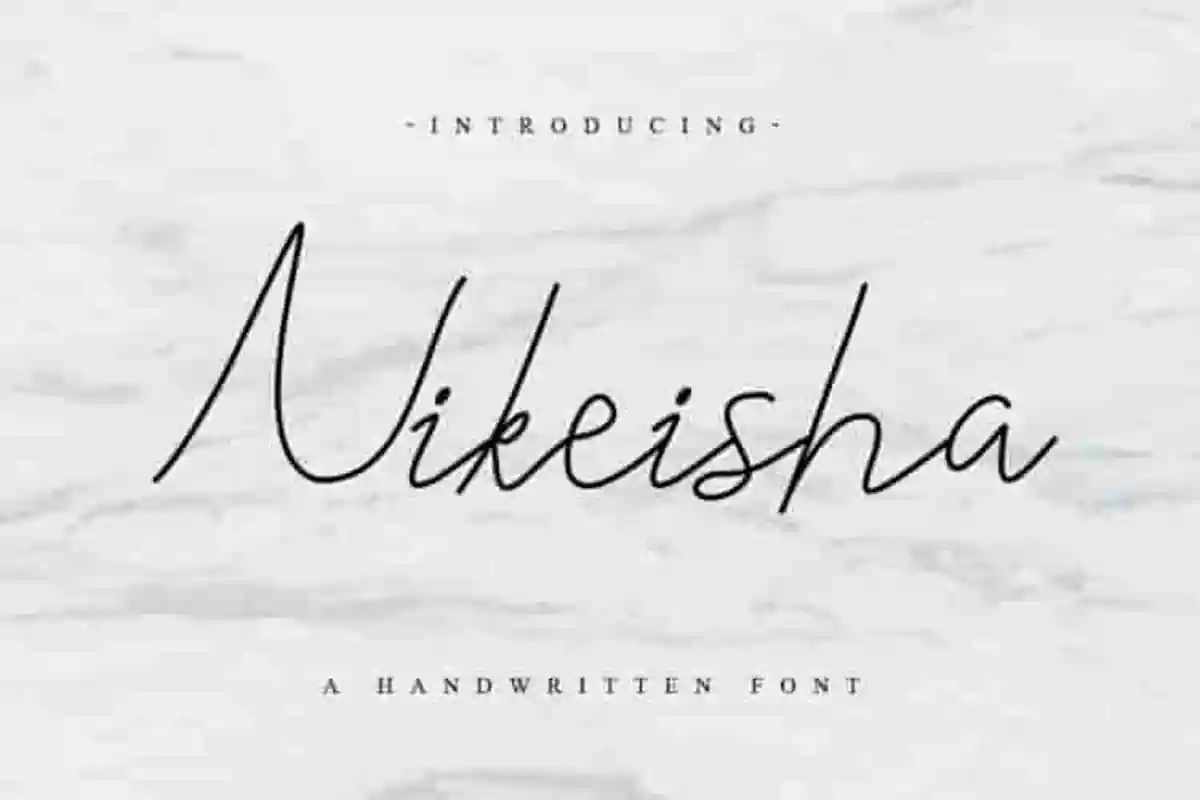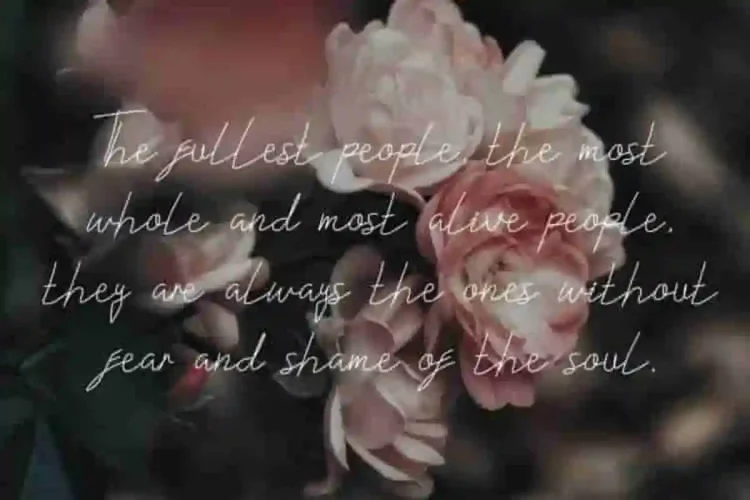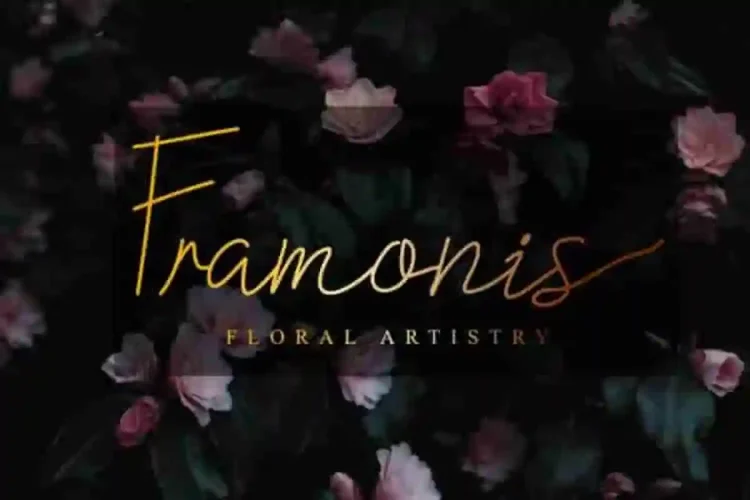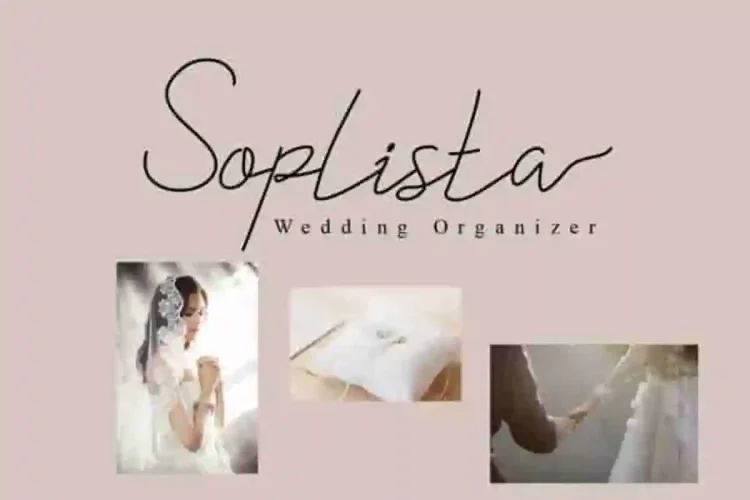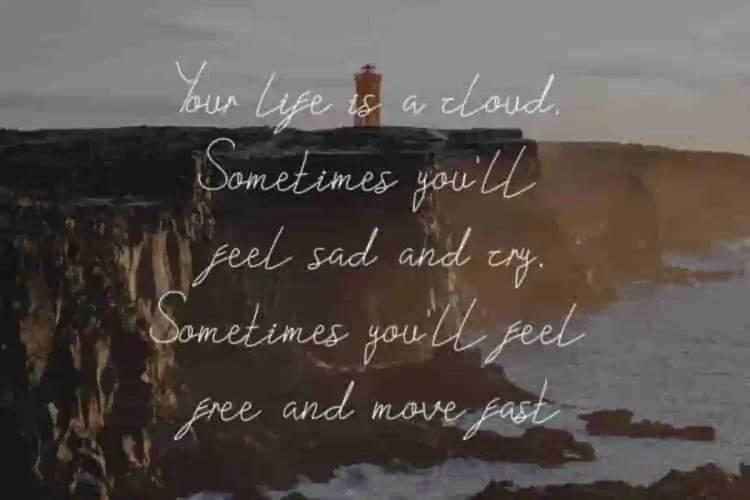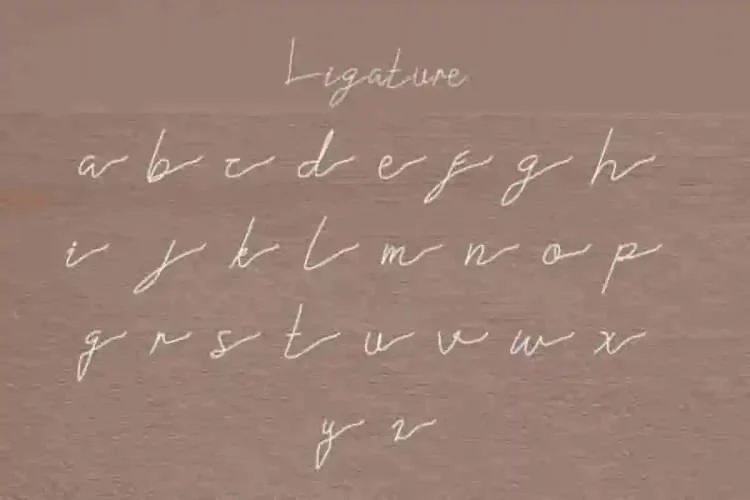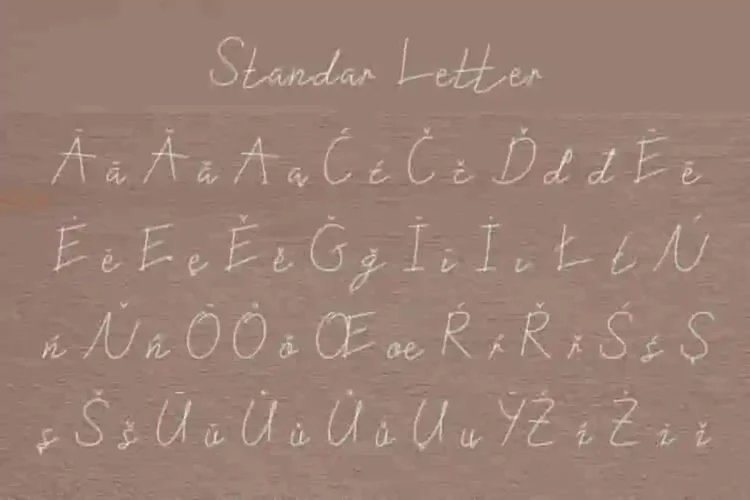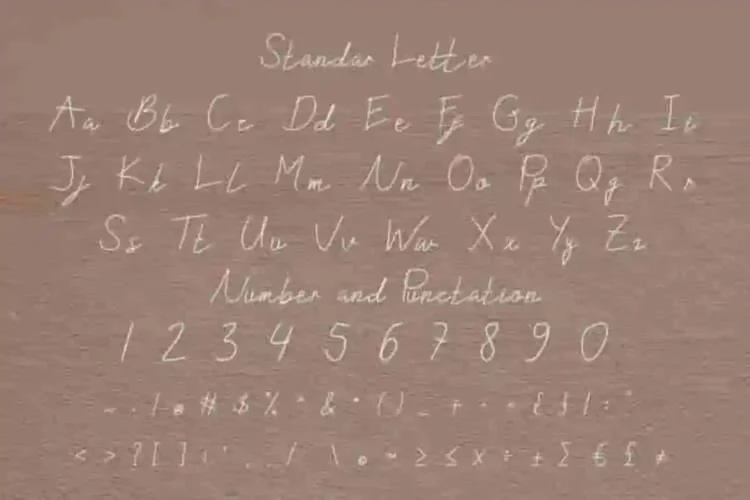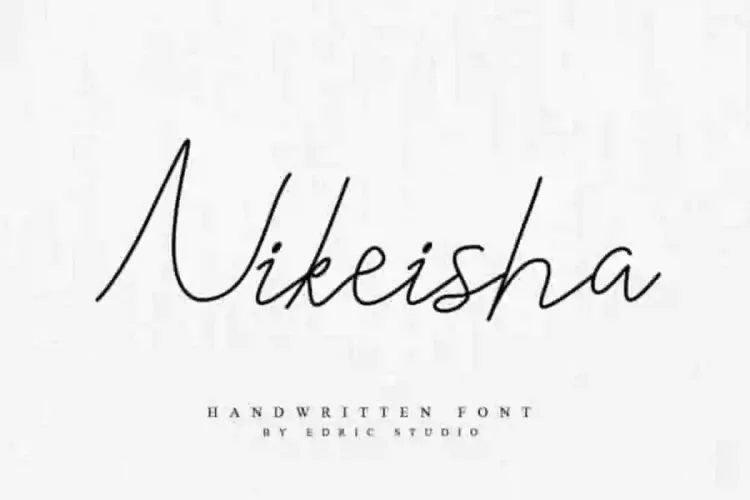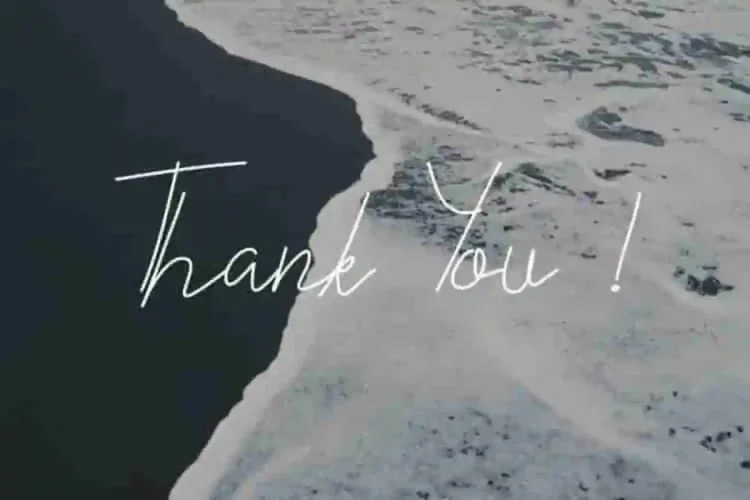
Nikeisha Cursive Handwritting Font
Introducing: a awesome font by Edric Studio  : Nikeisha
Nikeisha is a Monoline Cursive script handwriting font, handmade here on our studio : Indonesia.
This is a new script font one line or monoline script font with handwriting style that has unique glyhps set that is the elegant, strong, vintage, stylish, sophisticated, complex.
Plus it support multi-language